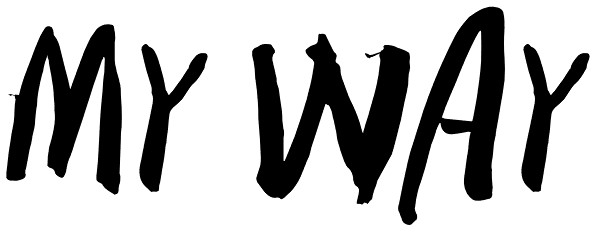
MY WAY
MY WAY belongs to a genre of fonts which contain the “aesthetic of ugly”. This is a font with a good balance of rhythm and contrast. Its aim is casual, wild and anarchic. Because of the spontaneity this font contains, there are plenty of Standard...